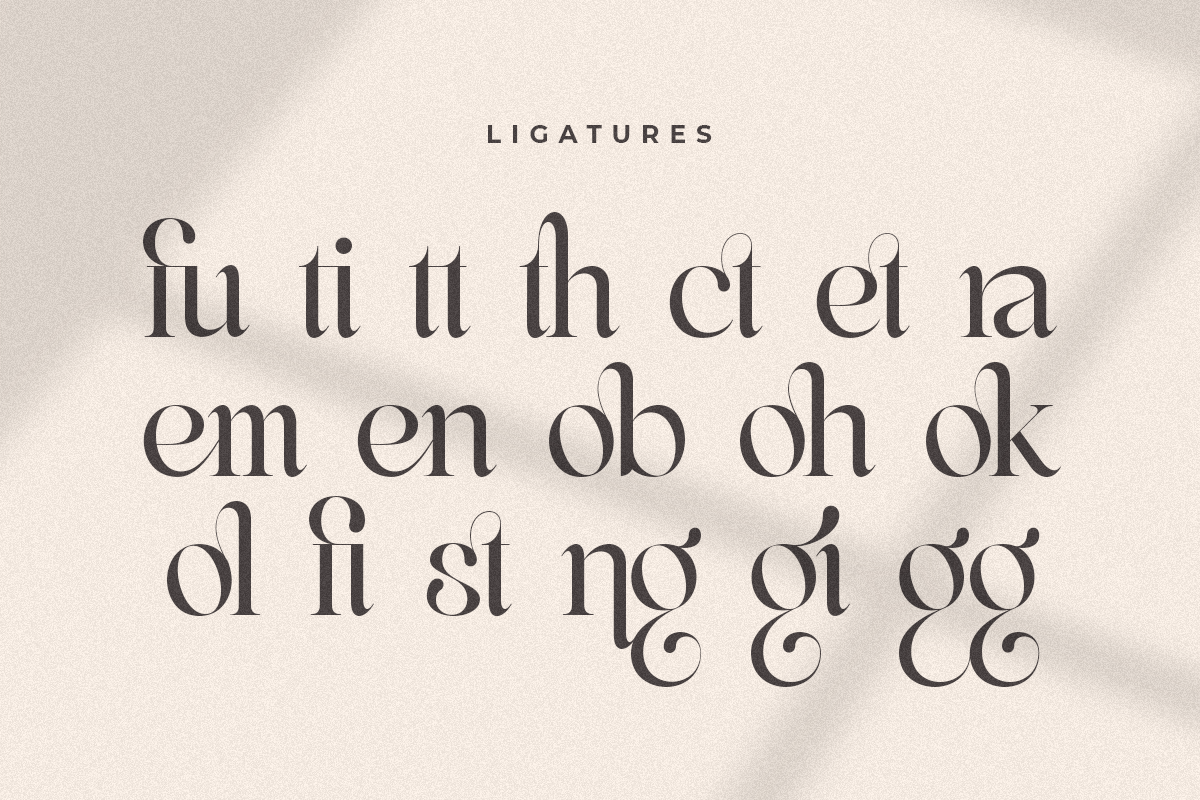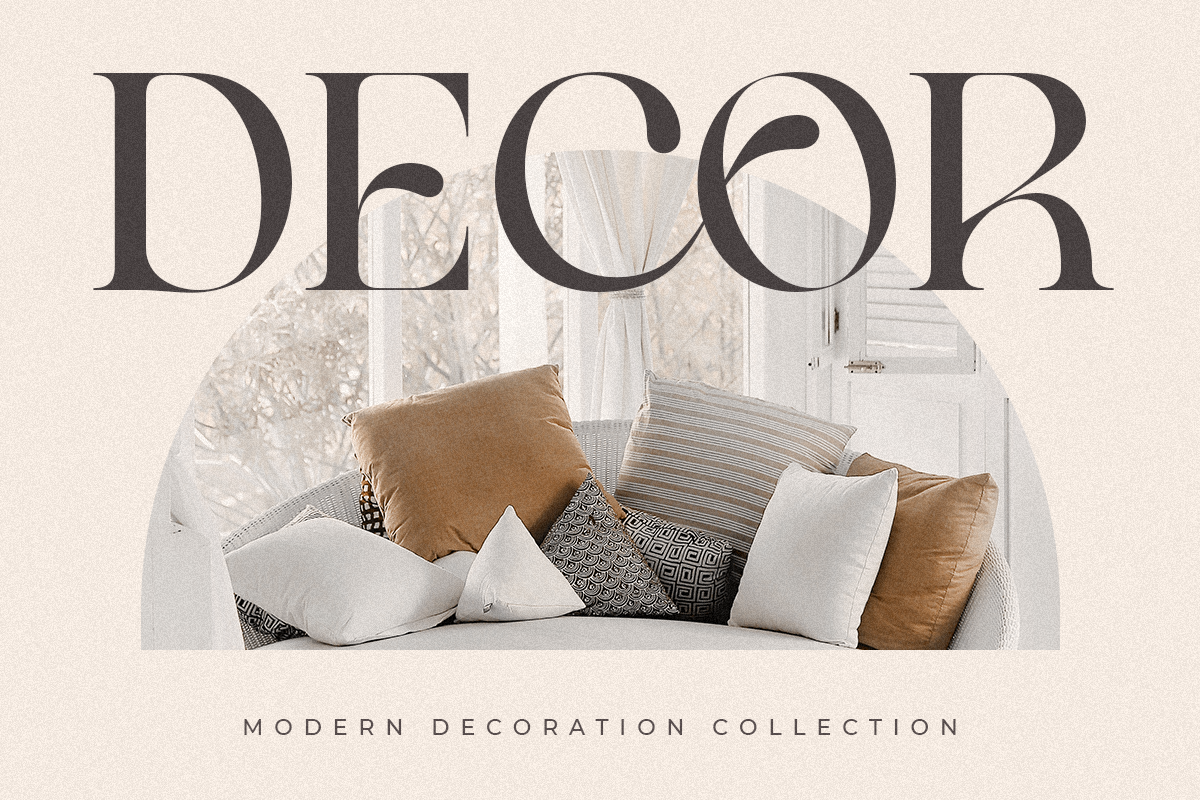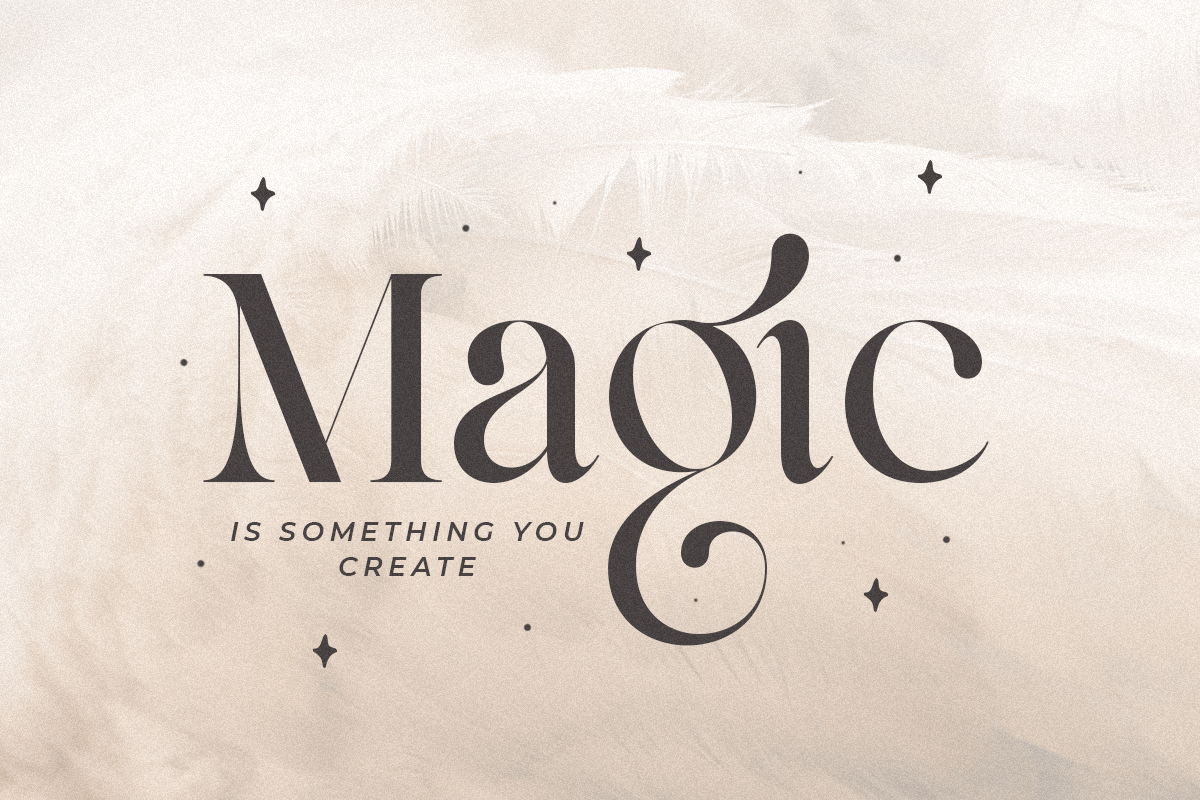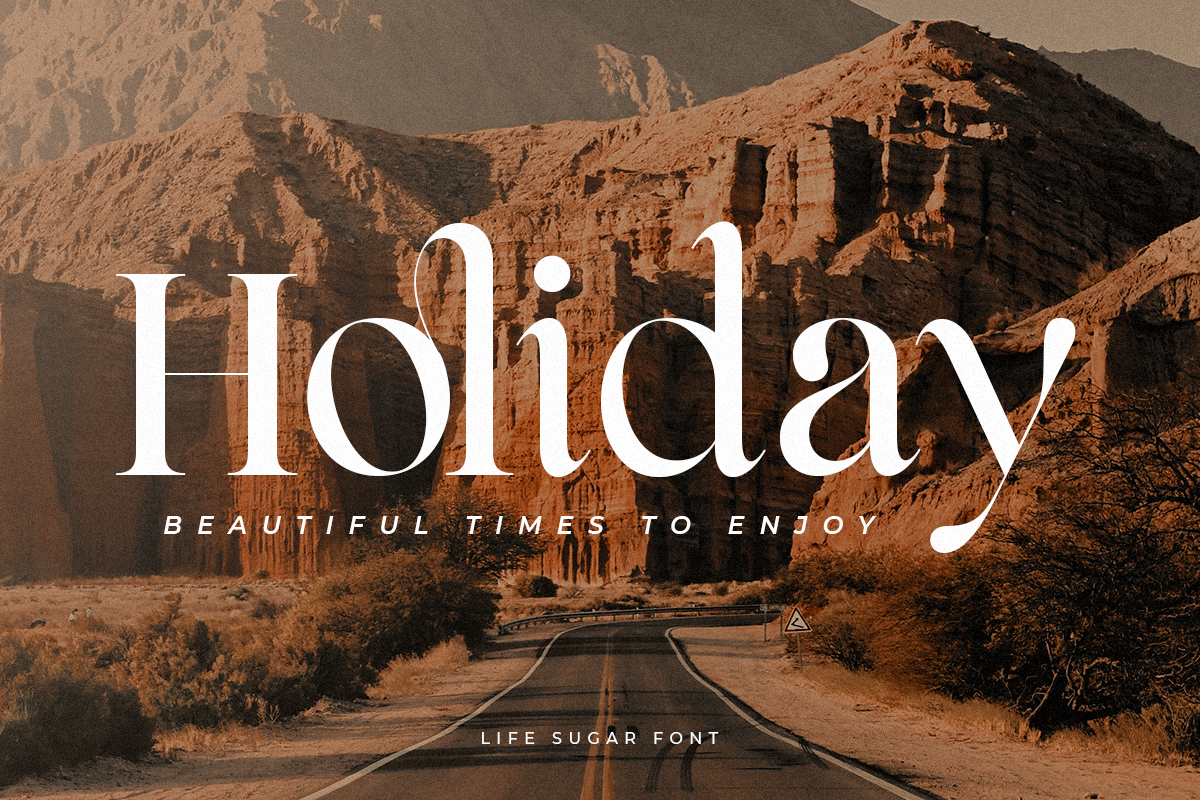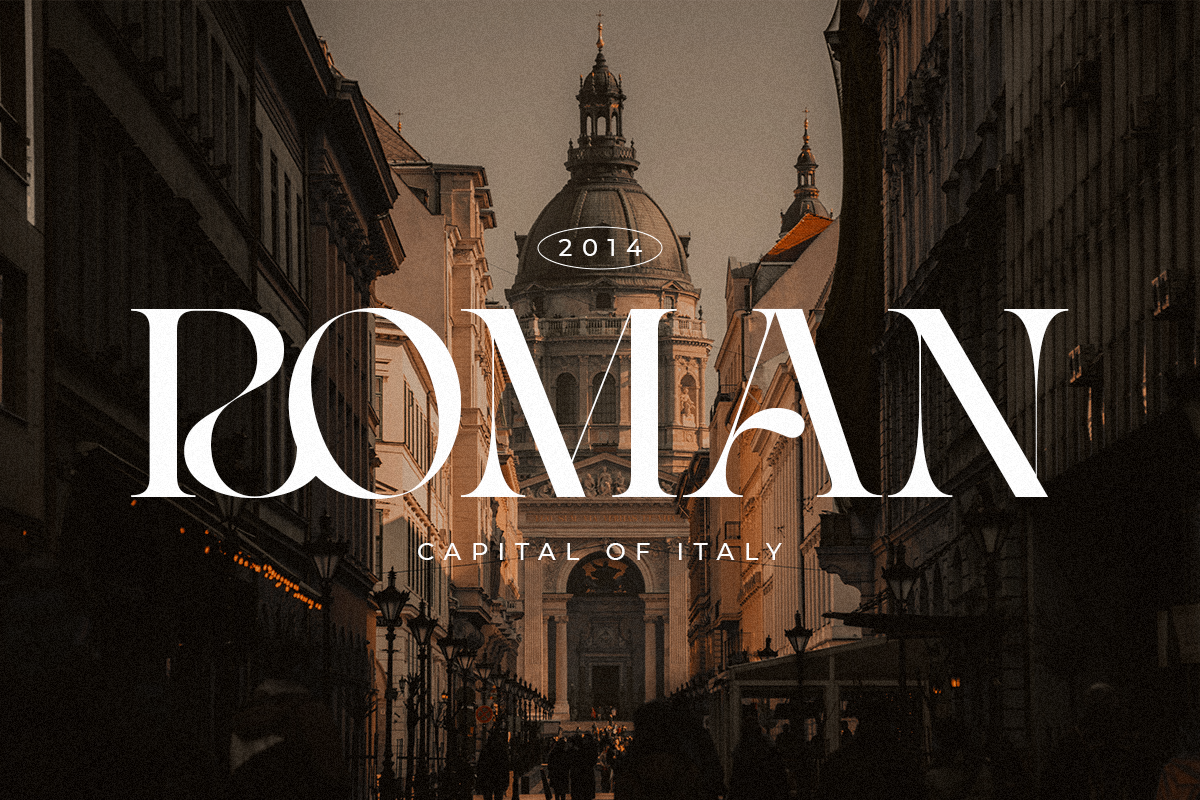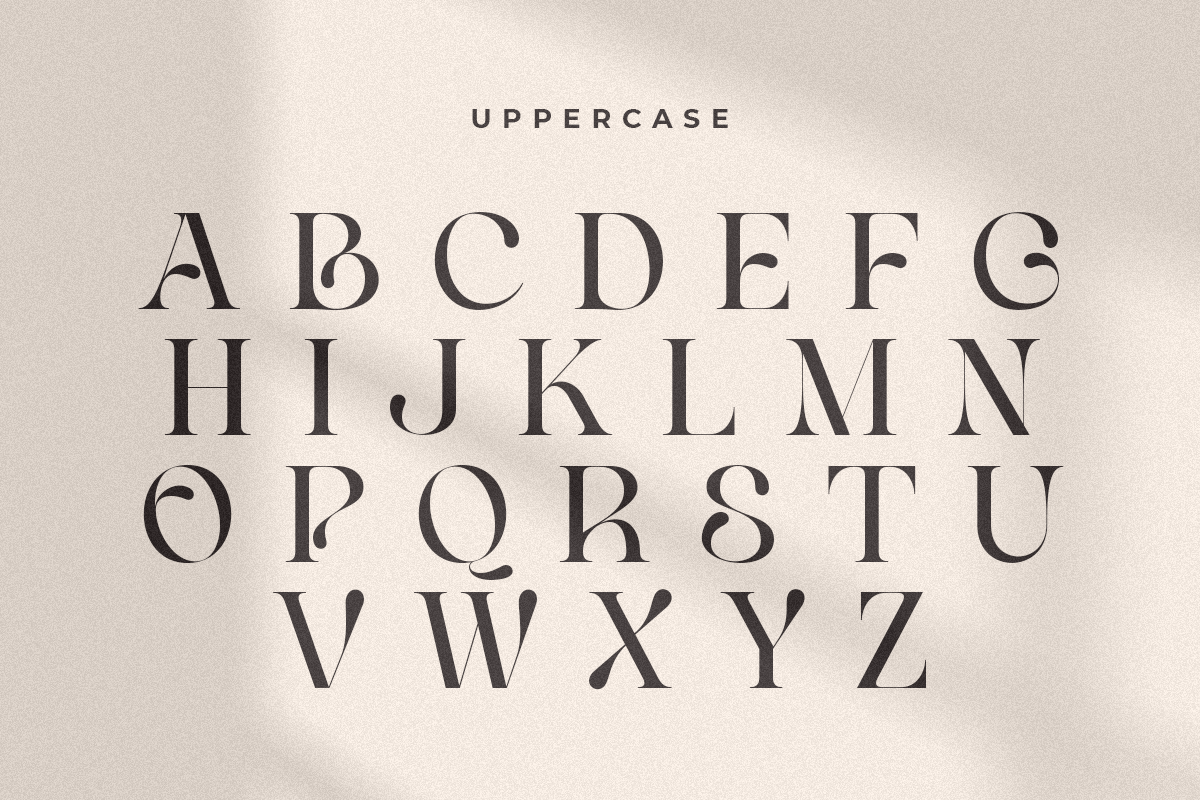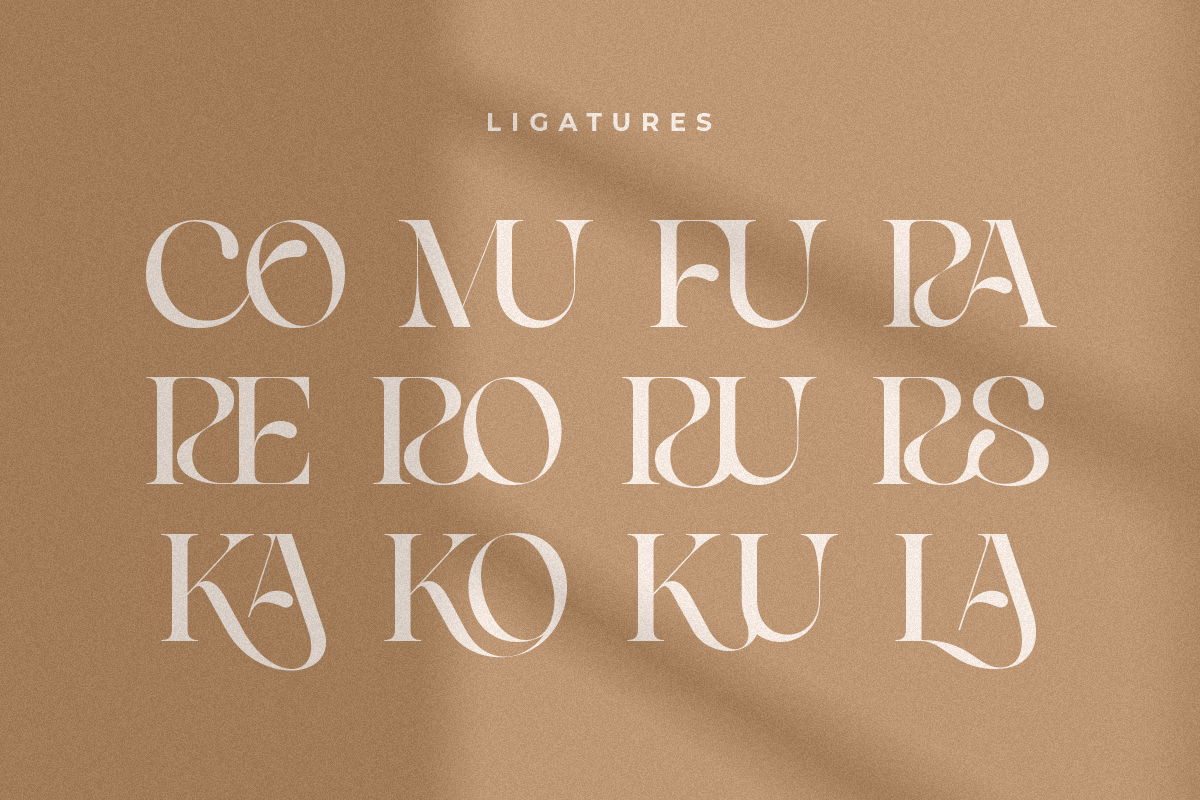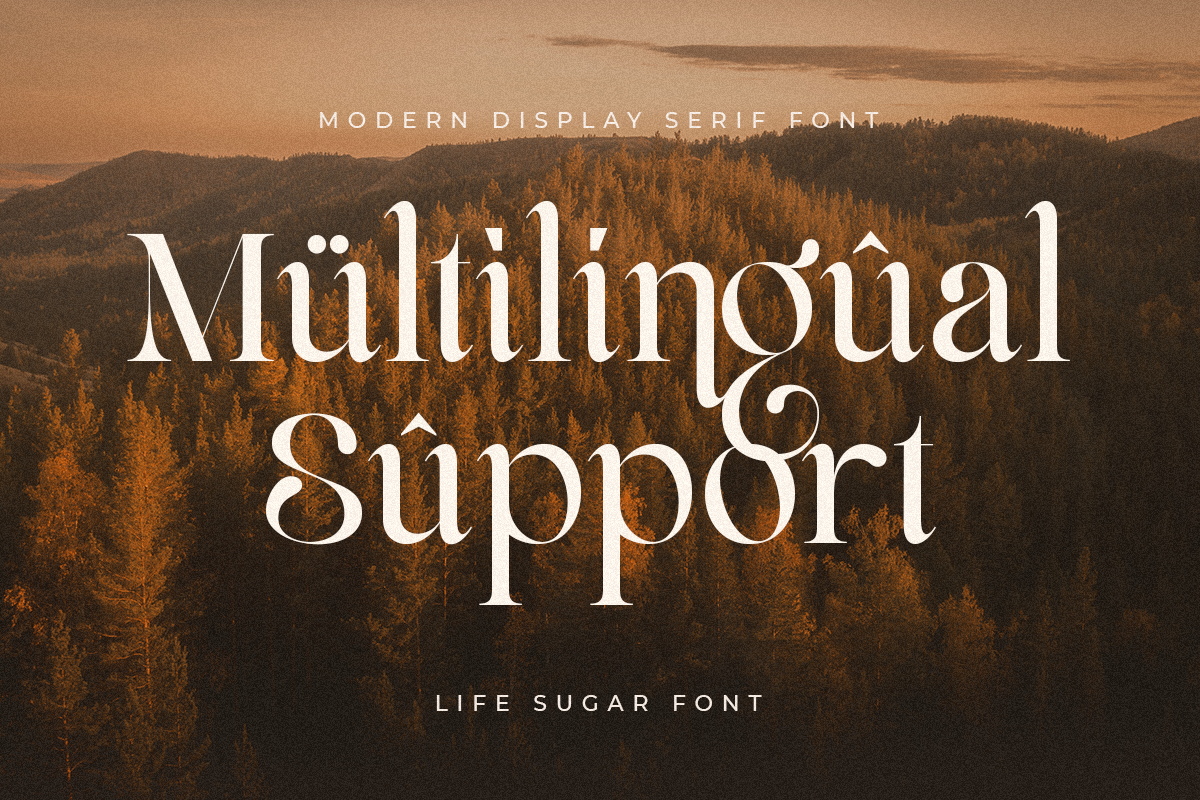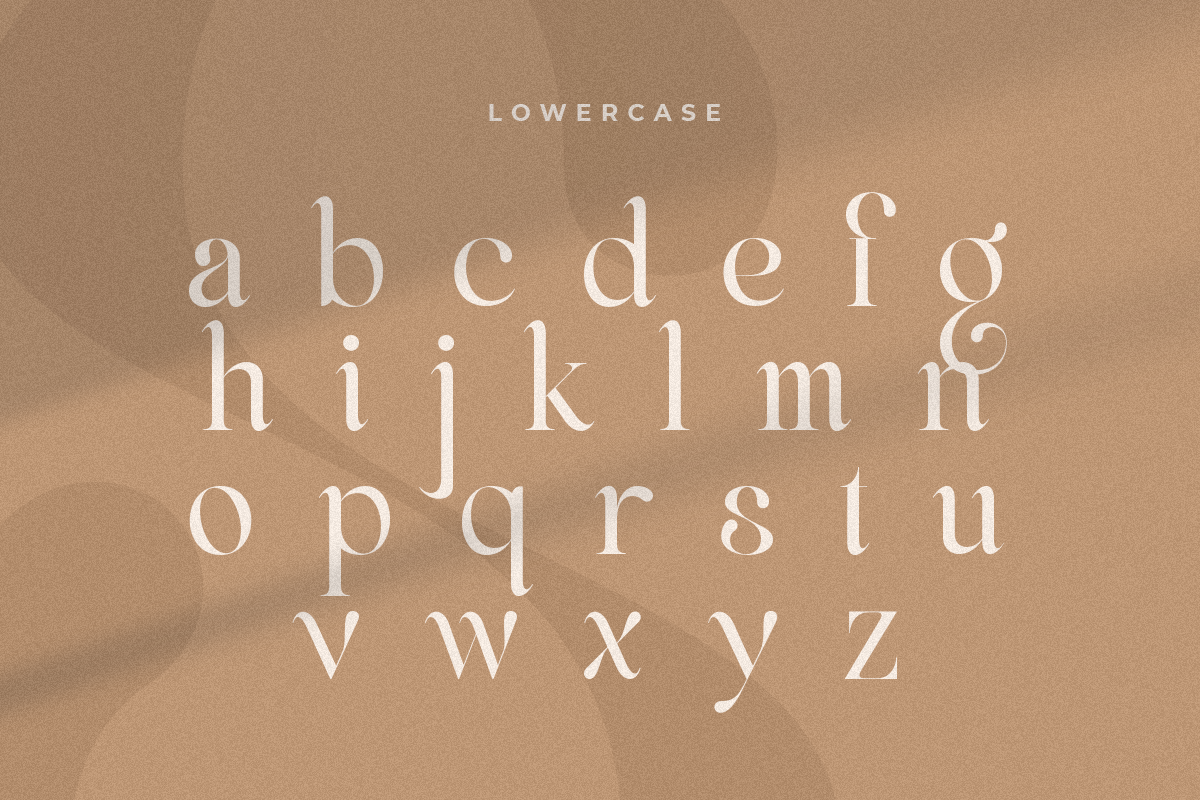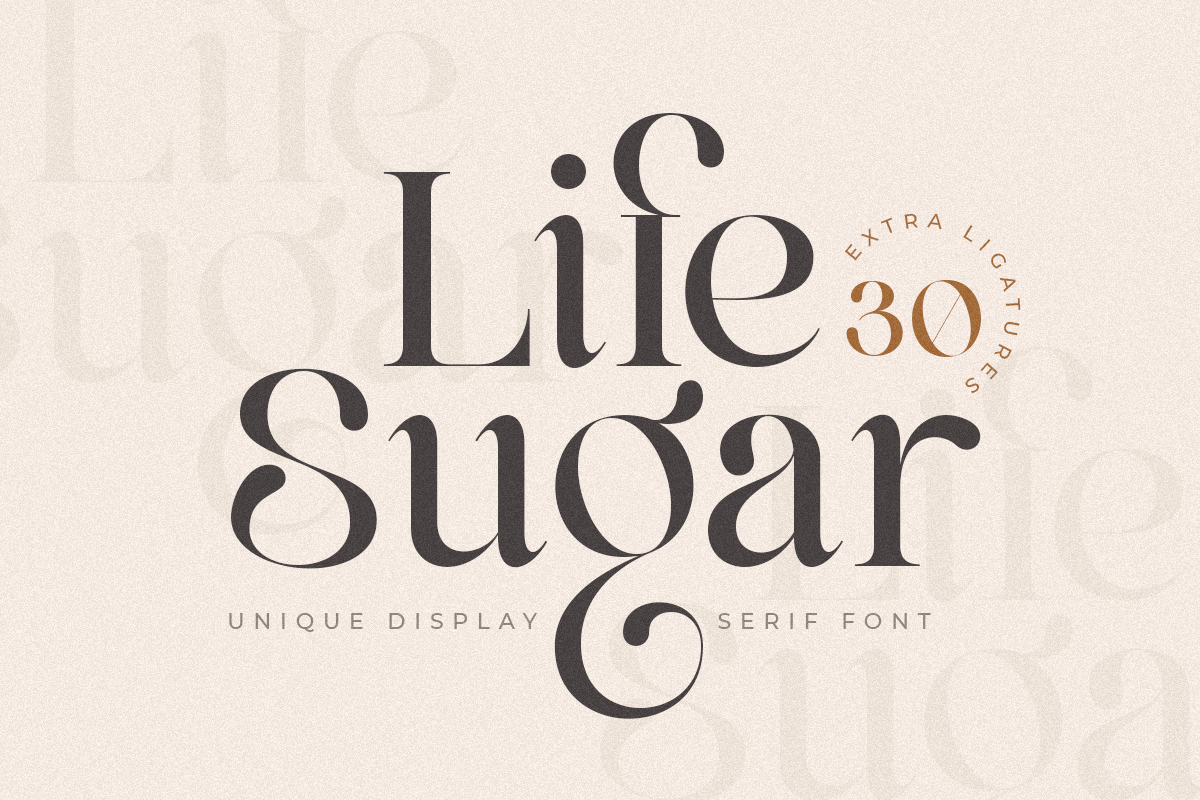
Life Sugar - Unique Serif Font
Life Sugar is an Unique Display serif font with luxury, elegant, modern, unique and classy-look. This font crafted specials for beauty-themed projects, ready to use on Magazine, Social Media, Branding, Logo, and Many more that needs Modern touches.
Life Sugar is also included full set of:
- uppercase and lowercase letters
- multilingual characters
- numerals
- punctuation